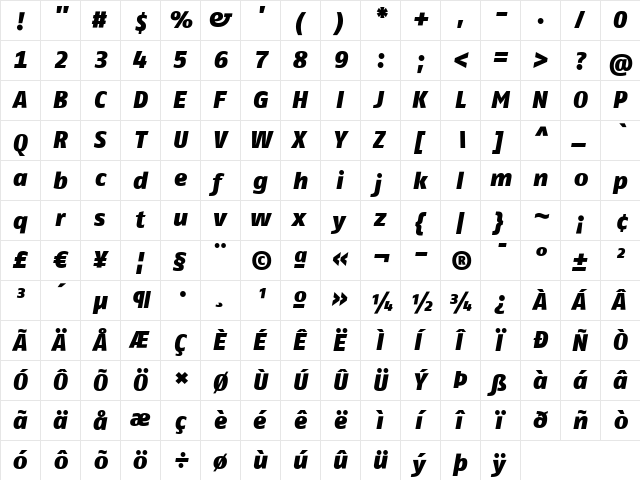
FagoNoTf ItalicHeavy Font Preview
FagoNoTf ItalicHeavy
FagoNoTf ItalicHeavy Font Details
| Style | ItalicHeavy |
Design Context for FagoNoTf Typeface
FagoNoTf offers clean, dependable letterforms without strong stylistic allegiance, making it a practical choice for designers who need flexibility. The slanted form adds forward momentum and visual energy.
Pro Tip: Use FagoNoTf for emphasis, pull quotes, and subheadings where its slanted energy can add rhythm to the layout.